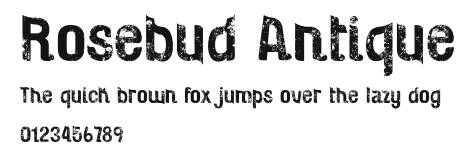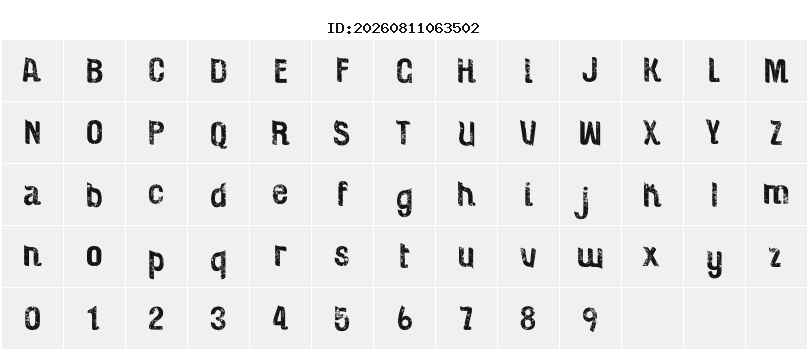
Rosebud Antique Preview
• Font Name: Rosebud Antique
• Font ID: Rosebud Antique:Version 1.00
• Full Font Name: Rosebud Antique
• Version: Version 1.00 May 2, 2010, initial release
• PostScript Name: RosebudAntique
About Rosebud Antique.ttf
Rosebud Antique.ttf is a modern, elegant sans-serif font designed for ultimate readability and visual harmony. Perfect for branding, headlines, web design, and print materials.